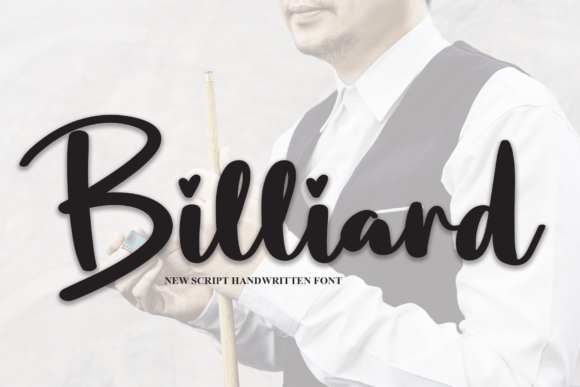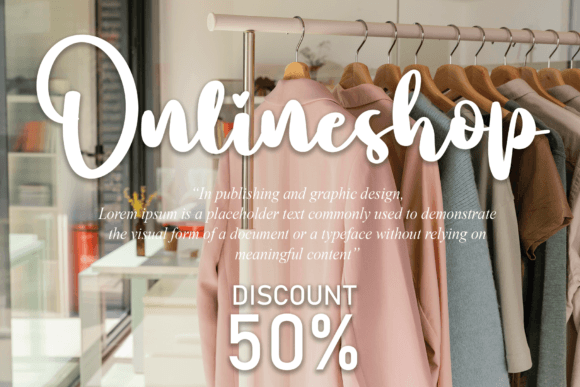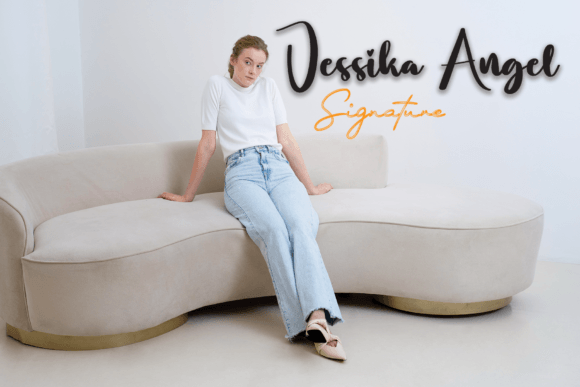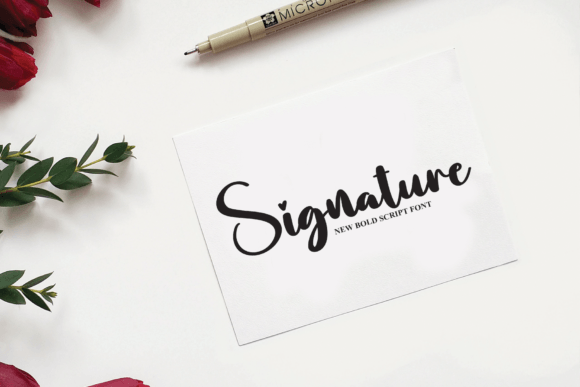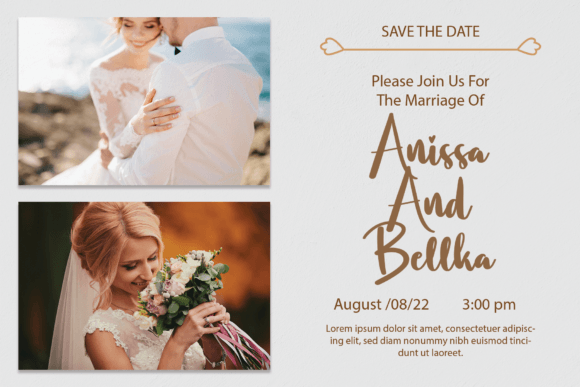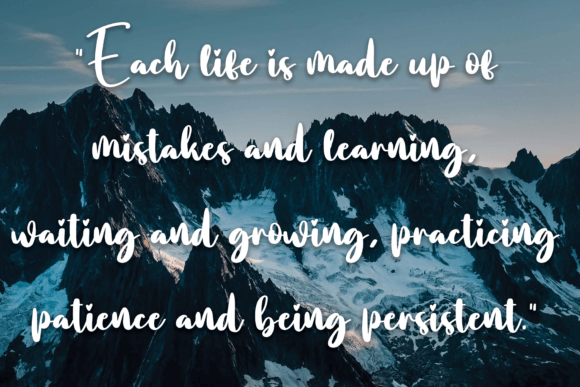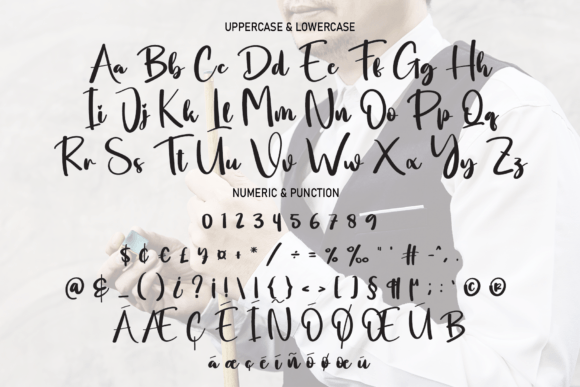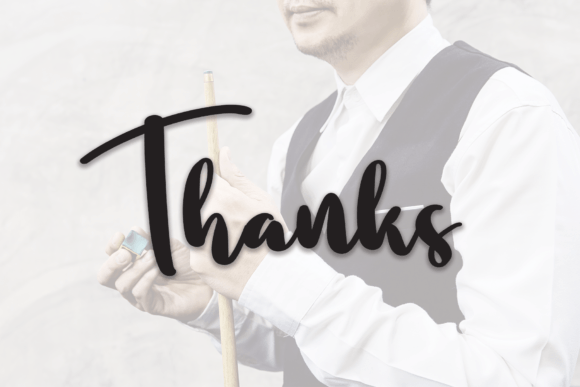
Billiard Font
About Billiard Font
Billiard’s latest style letters offer an impeccable choice for a diverse array of creative projects, demonstrating their versatility in applications such as wall displays, wedding invitations, social media post logos, advertisements, product packaging, product designs, labels, photography, watermarks, invitations, stationery, and any project in need of a distinctive handwritten touch.
Crafted with precision, the style letters from Billiard bring a unique and charming element to each project, ensuring a delightful fusion of authenticity and creativity. Whether you’re envisioning captivating wall displays or creating elegant wedding invitations, the adaptability of these letters makes them well-suited for a variety of visual expressions.
In the realm of branding, Billiard’s style letters shine on social media post logos and advertisements, injecting sophistication and a modern flair into your brand identity. When applied to product packaging and designs, the font elevates the overall visual appeal, transforming products into eye-catching and memorable experiences for consumers.
For labels and photography, the nuanced strokes and distinctive design elements of Billiard’s style letters provide a timeless charm. The font seamlessly integrates into watermarks, offering a signature touch that enhances the authenticity and individuality of your images. In the context of invitations and stationery, these style letters contribute warmth and character, ensuring each piece feels personal and inviting.
In summary, Billiard’s latest style letters are a versatile choice for those seeking a handwritten aesthetic for their projects. From wall displays and wedding invitations to social media logos, advertisements, product packaging, and beyond, these letters bring a unique charm that enhances the visual appeal of every creative endeavor. Embrace the distinctive and creative flair of Billiard’s style letters to make your projects truly stand out.